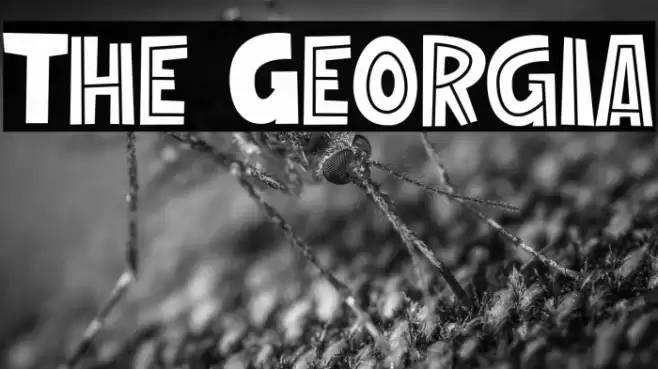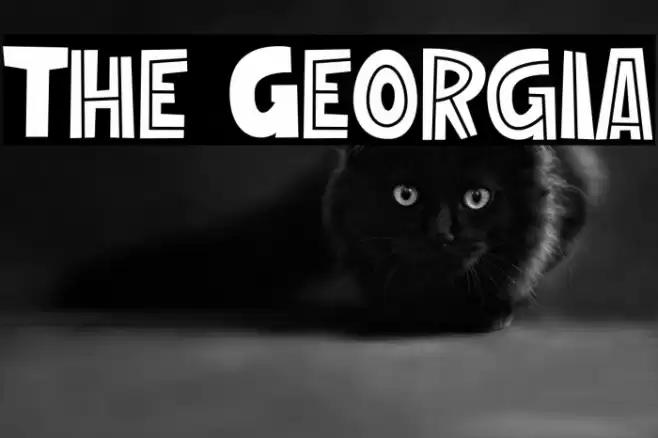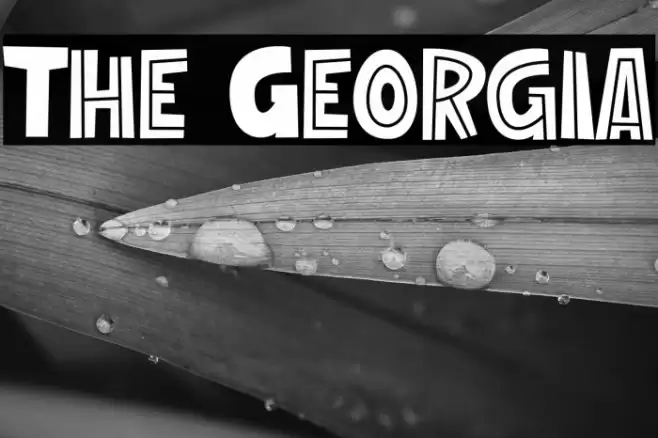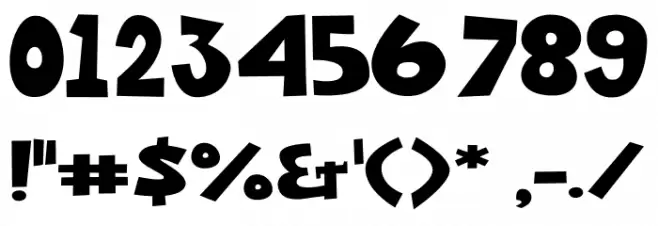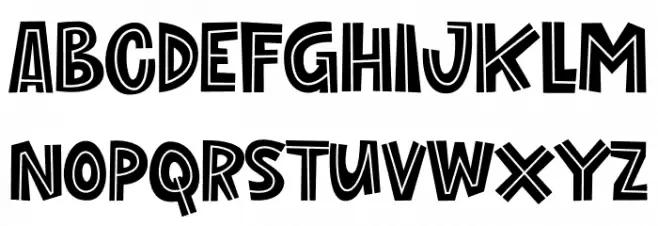
The Georgia Font
The Georgia Description
This font features a bold and playful design with exaggerated, thick strokes that give it a strong presence. The characters are slightly irregular, adding a whimsical and dynamic feel. The uppercase letters are particularly bold, while the lowercase letters maintain a consistent style. The numbers are equally bold and maintain the playful aesthetic. Special characters are designed to match the overall style, ensuring coherence across all glyphs. This font is ideal for projects that require a fun and eye-catching typeface.
A bold, playful font with exaggerated strokes and a whimsical style from Cartoon fonts.
- Proposed Projects: Perfect for children's books, playful branding, posters, and party invitations.
- Overall Style: Playful, Whimsical